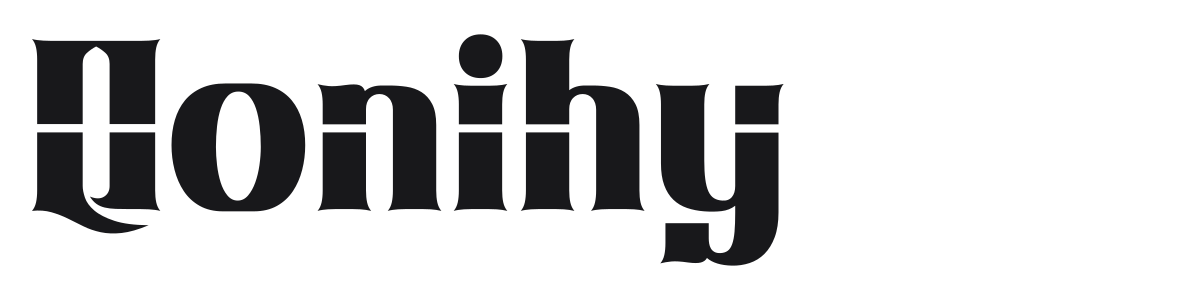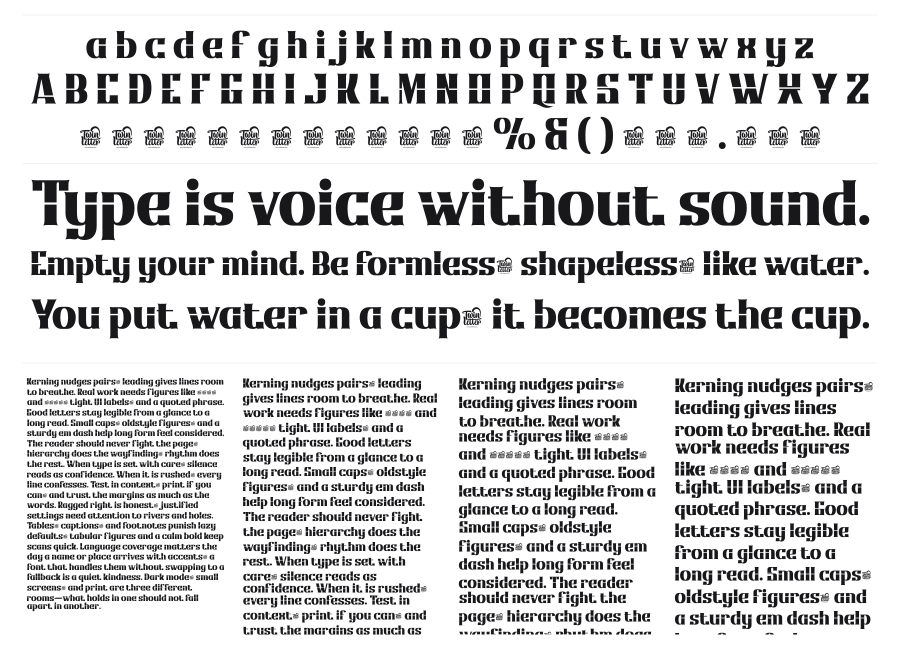
Qonihy
Qonihy is a bold, high-contrast serif with strong Didone DNA and a contemporary edge. The dramatic interplay between thick stems and razor-thin strokes gives it a fashion-editorial authority that reads powerfully at large sizes. It sits comfortably alongside luxury branding, magazine headlines, and poster work.